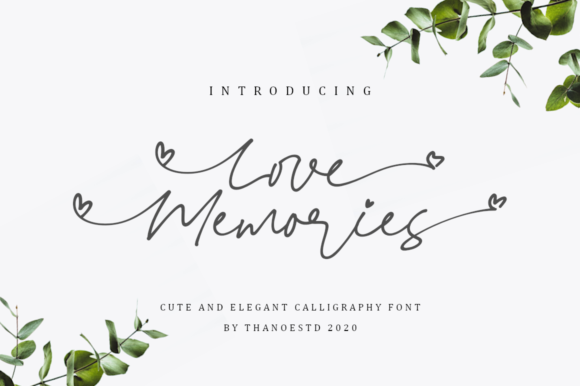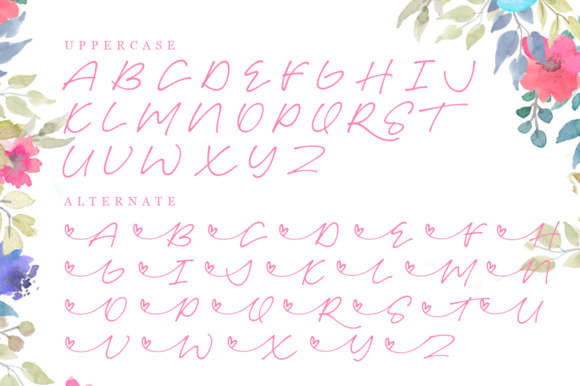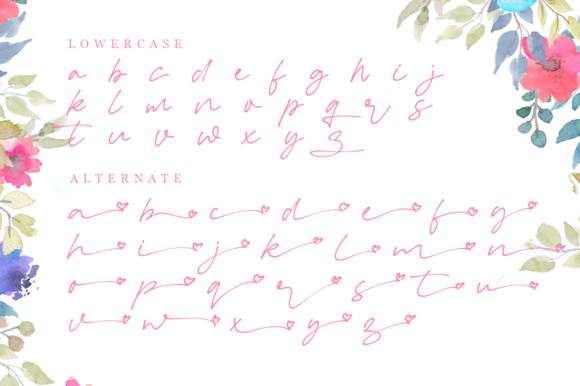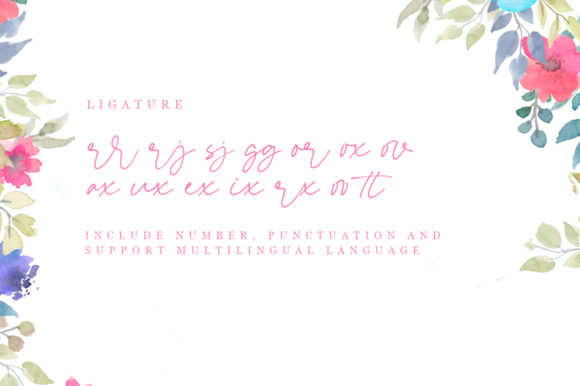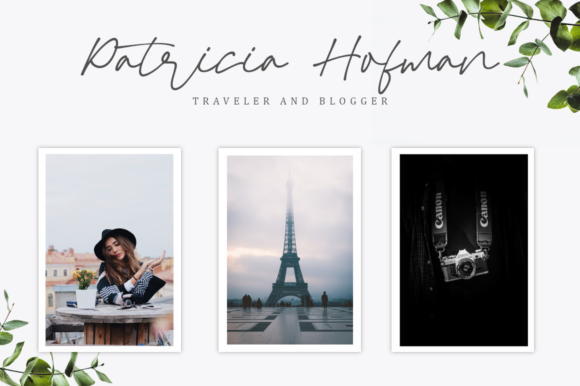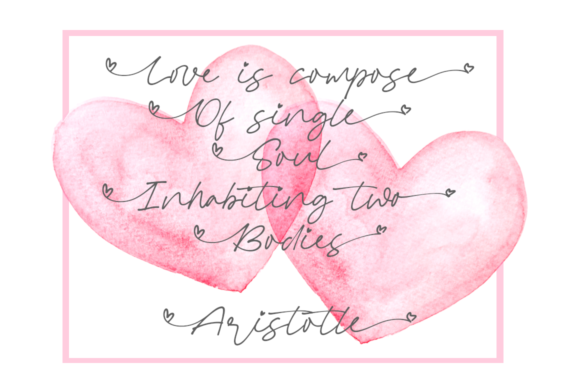
About Love Memories Font
Love Memories is a cute handwritten font. It features heart-themed characters that will add a romantic touch to your designs. It’s perfect for stationery, greeting cards, branding and much more!
This font is PUA encoded which means you can access all of the great glyphs and swashes with ease! It also features a wealth of special features including alternate glyphs and ligatures.